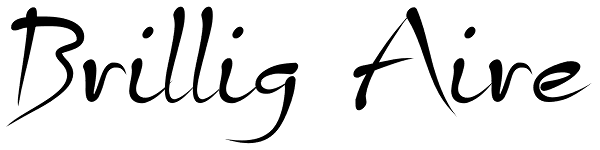
Brillig
Brillig is a loose and informal handwriting font. It comes in four flavors, each of which has a very different feel. Brillig Gimble: more formal in that the characters are interconnected as in cursive script. To further enhance this effect, the...
Brillig Aire
Brillig Gimble
Brillig Earth
Brillig Brave
Brillig Line